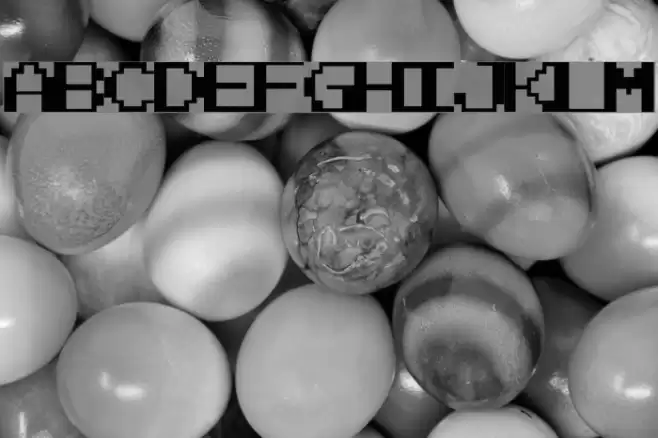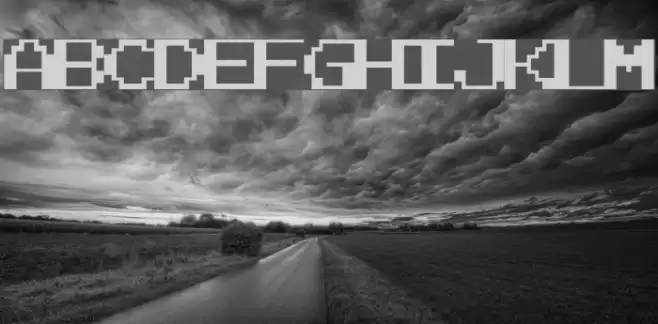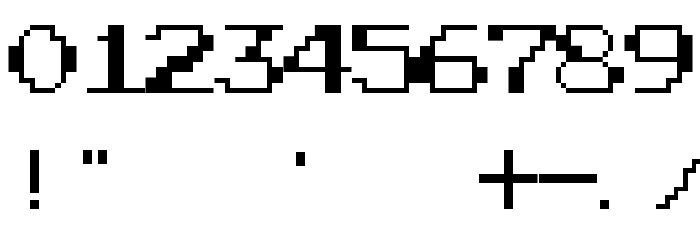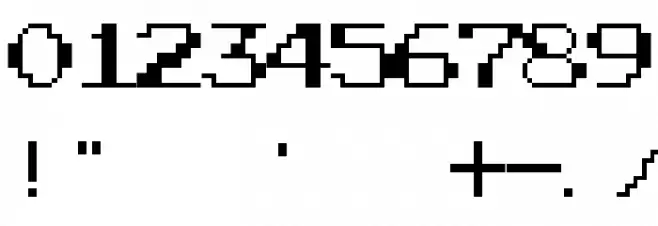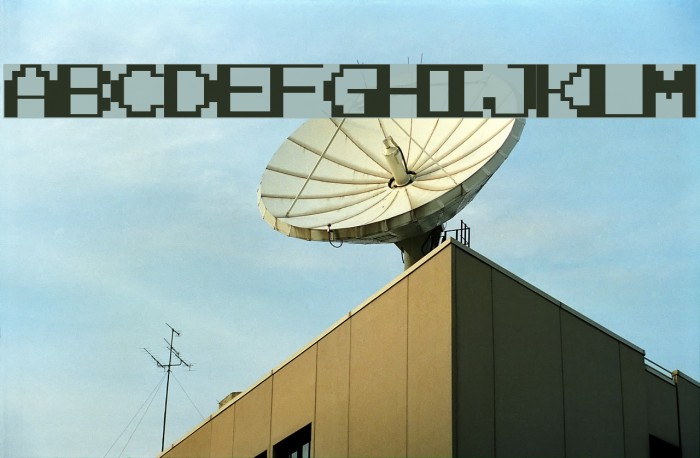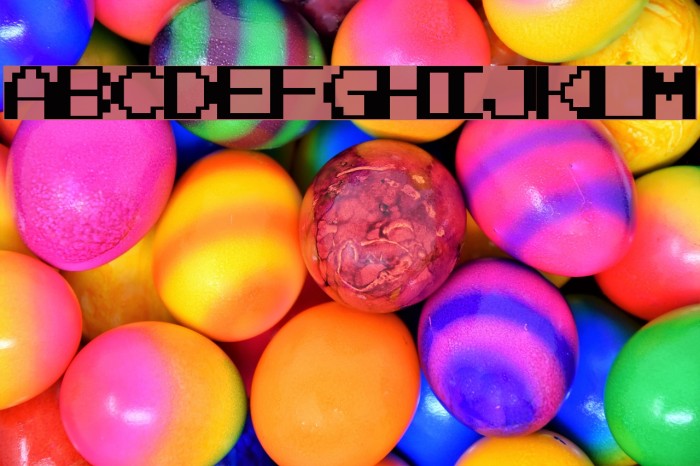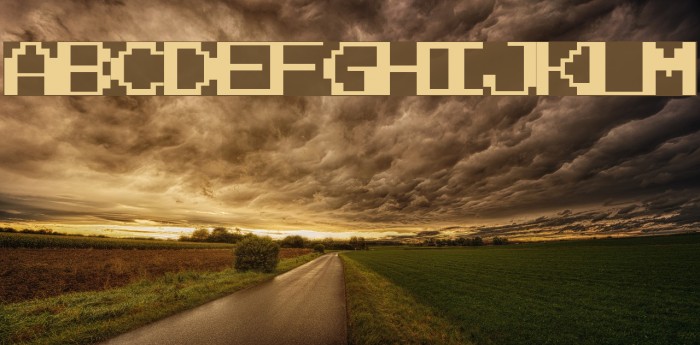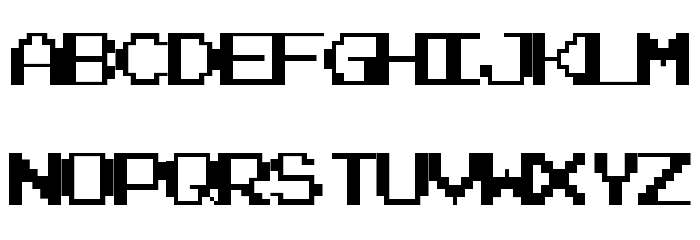
Alphabet_03 Font
Alphabet_03 Description
This font features a bold, pixelated design reminiscent of early digital displays and retro video games. Each character is constructed with a blocky, grid-like appearance, giving it a distinctly digital and vintage feel. The uppercase and lowercase letters maintain a consistent height, emphasizing the uniformity typical of monospaced fonts. The numbers and special characters follow the same pixelated style, ensuring a cohesive look across all glyphs. This font's nostalgic aesthetic is perfect for projects that aim to evoke a sense of the early digital era or for creative works that require a unique, eye-catching typeface.
A bold, pixelated font with a retro digital aesthetic from Futuristic fonts.
- Proposed Projects: Ideal for retro-themed video games, digital art projects, and nostalgic branding.
- Overall Style: Vintage
- Use Case: Logos, Headlines, Digital displays